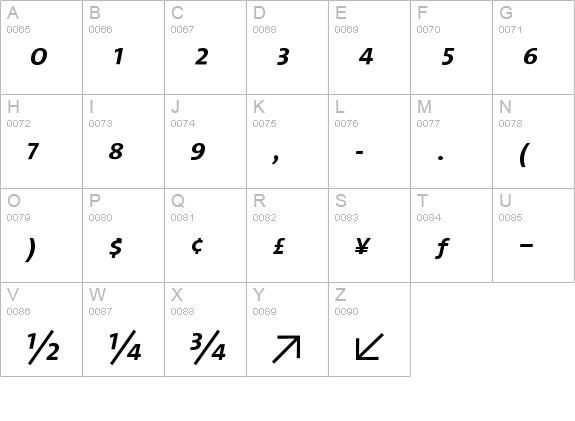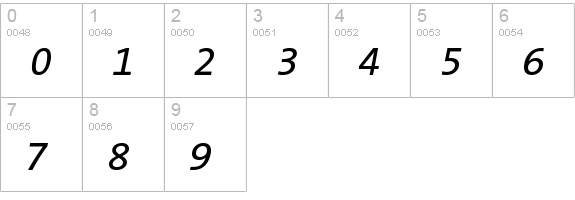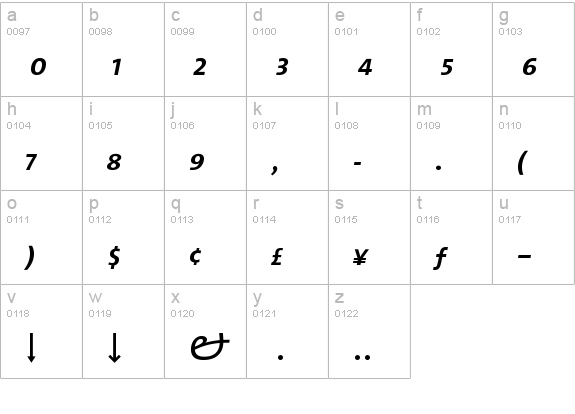
TheSans Expert Italic Font Details
TheSans Expert Italic is a distinctive, italic variant in the TheSans typeface family \xE2\x80\x94 well suited to design and typography projects.
TheSans Expert Italic font is a stunning and versatile typeface that effortlessly combines elegance with modernity. Its sleek and sleek design exudes confidence and sophistication, making it the perfect choice for a wide range of design projects. This font features a unique italic style that adds a touch of flair and creativity to any text. Its slanted and subtly curved letterforms create a sense of movement and dynamism, making it a powerful tool for expressing emotions and capturing attention. TheSans Expert Italic font showcases exceptional legibility, ensuring that your message is delivered clearly and effectively. Each letter is carefully crafted to maintain readability even at smaller sizes, making it an excellent choice for body text and longer passages. One of the most appealing aspects of TheSans Expert Italic font is that it is freely available to download at FontsMarket.com. This means that designers and individuals alike can easily access and utilize this exceptional typeface without any cost. It's a fantastic opportunity to enhance your creative projects without breaking the bank. Whether you're designing a website, creating a logo, or crafting a print advertisement, TheSans Expert Italic font is a versatile and powerful tool that will elevate your work to new heights. Its sleek and modern design, combined with its incredible legibility, makes it a must-have font for any designer or typographer. Download it for free at FontsMarket.com and unlock a world of possibilities for your next creative endeavor.